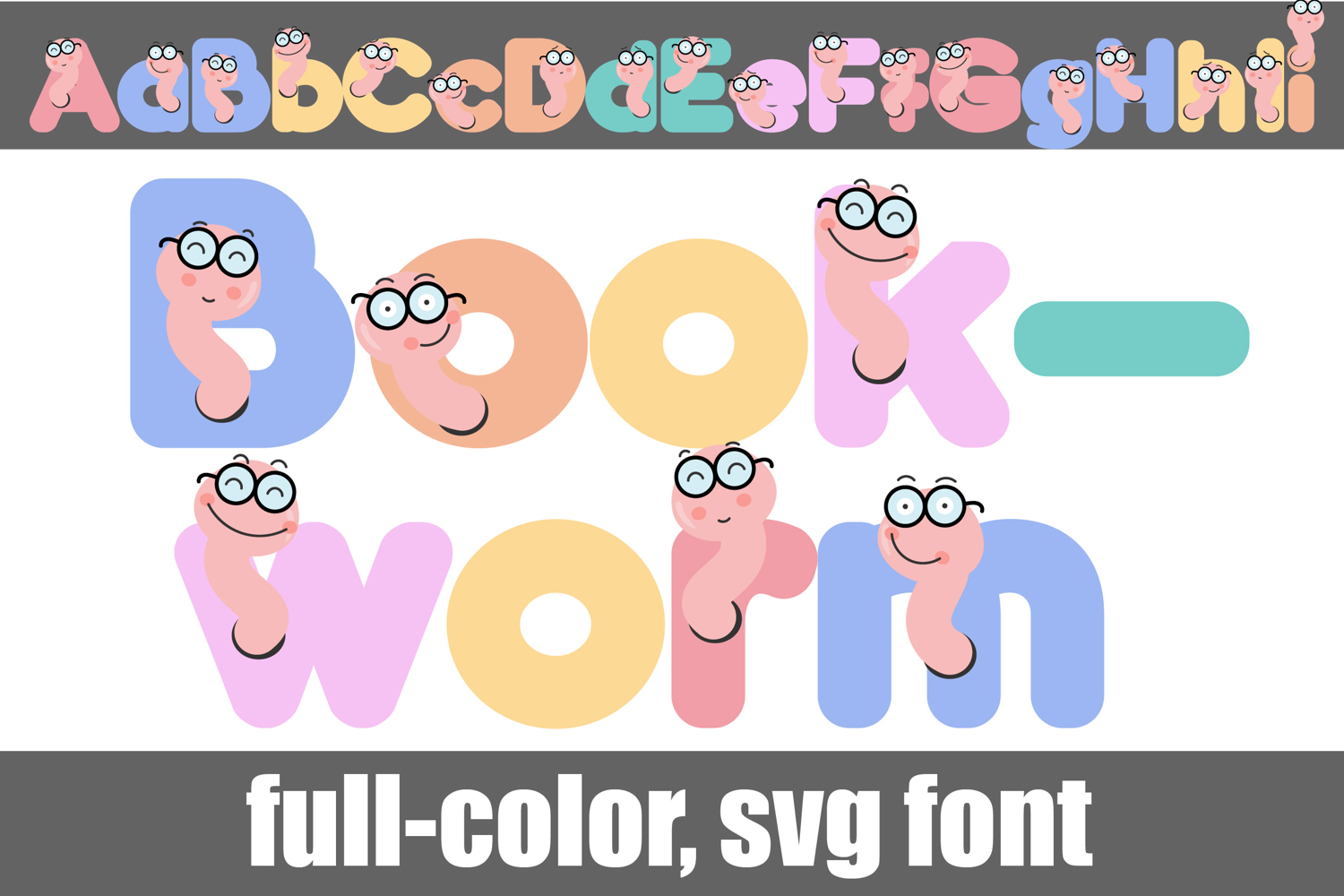
Bookworm Rainbow Color Font
This full-color, bookworm style font features pastel lettering and worms. There is an alt case with additional colors of all the letters you can access through your system's character maps.